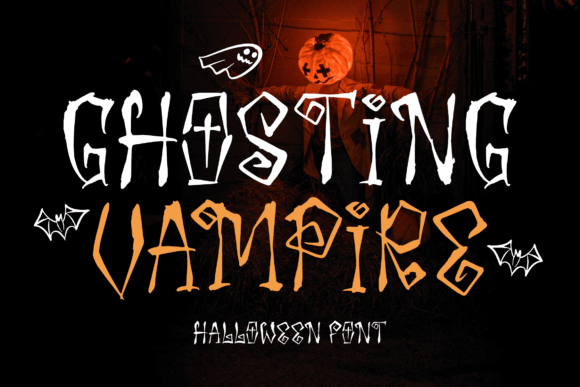
Ghosting Vampire Font: The Spookiest Addition to Your Halloween Projects
As the spookiest season of the year approaches, designers and creatives are on the lookout for the perfect typography to add a touch of eeriness to their projects. If you’re looking for a font that will make your designs stand out, look no further than the Ghosting Vampire Font. In this article, we’ll dive into the details of this unique font and explore its suitability for various projects, from logos and branding to Halloween-themed designs and more.
What is Ghosting Vampire Font?
Ghosting Vampire Font is a specially designed typography that embodies the spirit of Halloween. With its spooky and eerie feel, this font is perfect for creating designs that will send shivers down the spines of your audience. The font features a unique, handwritten style with a distressed effect that gives it a haunting appearance.
Perfect for a Wide Range of Projects
Ghosting Vampire Font is an incredibly versatile typography that can be used for a wide range of projects, including:
- Logos and branding projects: Add a touch of spookiness to your brand identity with this unique font.
- Homeware designs: Create eerie and eye-catching designs for your homeware products, such as mugs, vases, and more.
- Product packaging: Make your product packaging stand out with a spooky design that will grab attention.
- Mugs and quotes: Create haunting designs for mugs and quotes that will add a touch of eeriness to anyone’s day.
- Posters and shopping bags: Design eye-catching posters and shopping bags that will make your audience take notice.
- T-shirts and apparel: Create spooky designs for t-shirts and other apparel that will make you stand out from the crowd.
- Book covers and name cards: Add a touch of eeriness to your book covers and name cards with this unique font.
- Invitation cards and greeting cards: Create haunting designs for invitation cards and greeting cards that will set the tone for any occasion.
- Labels and photography: Use Ghosting Vampire Font to create eye-catching labels and watermarks for your photography projects.
- Special events: Create spooky designs for special events, such as Halloween parties and haunted houses.
Benefits of Using Ghosting Vampire Font
So, why choose Ghosting Vampire Font for your projects? Here are just a few benefits of using this unique typography:
- Unique and eye-catching: Ghosting Vampire Font is unlike any other font out there. Its unique, handwritten style with a distressed effect will make your designs stand out from the crowd.
- Versatile: This font can be used for a wide range of projects, from logos and branding to Halloween-themed designs and more.
- Eerie and spooky: Ghosting Vampire Font embodies the spirit of Halloween, making it perfect for creating designs that will send shivers down the spines of your audience.
Tips and Tricks for Using Ghosting Vampire Font
Here are a few tips and tricks for using Ghosting Vampire Font in your projects:
- Experiment with different colors: Try pairing Ghosting Vampire Font with different colors to create a unique and eye-catching design.
- Add textures and effects: Add textures and effects to your design to give it a more eerie and spooky feel.
- Use it sparingly: Use Ghosting Vampire Font sparingly to create a greater impact. You can use it for headings or titles to add a touch of spookiness to your design.
- Pair it with other fonts: Try pairing Ghosting Vampire Font with other fonts to create a unique and interesting design.
| Font Name | Ghosting Vampire Font |
| Author | Letterfabric |